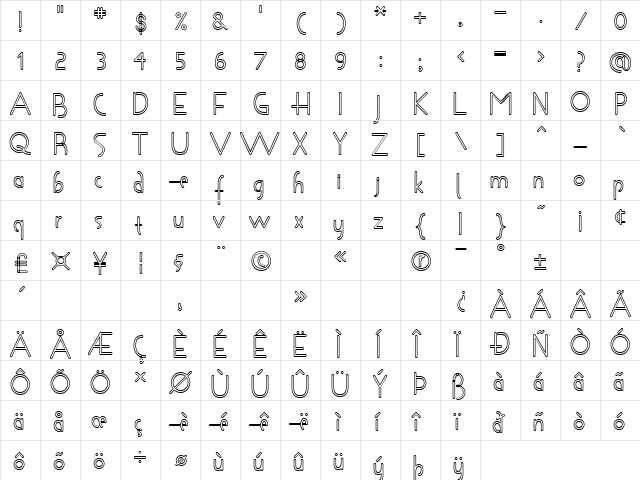
Shapeshifter Hollow Regular
Design Context for Shapeshifter Hollow Typeface
Shapeshifter Hollow takes a measured approach to typography — its balanced proportions and neutral character make it a reliable workhorse for both digital and print work.